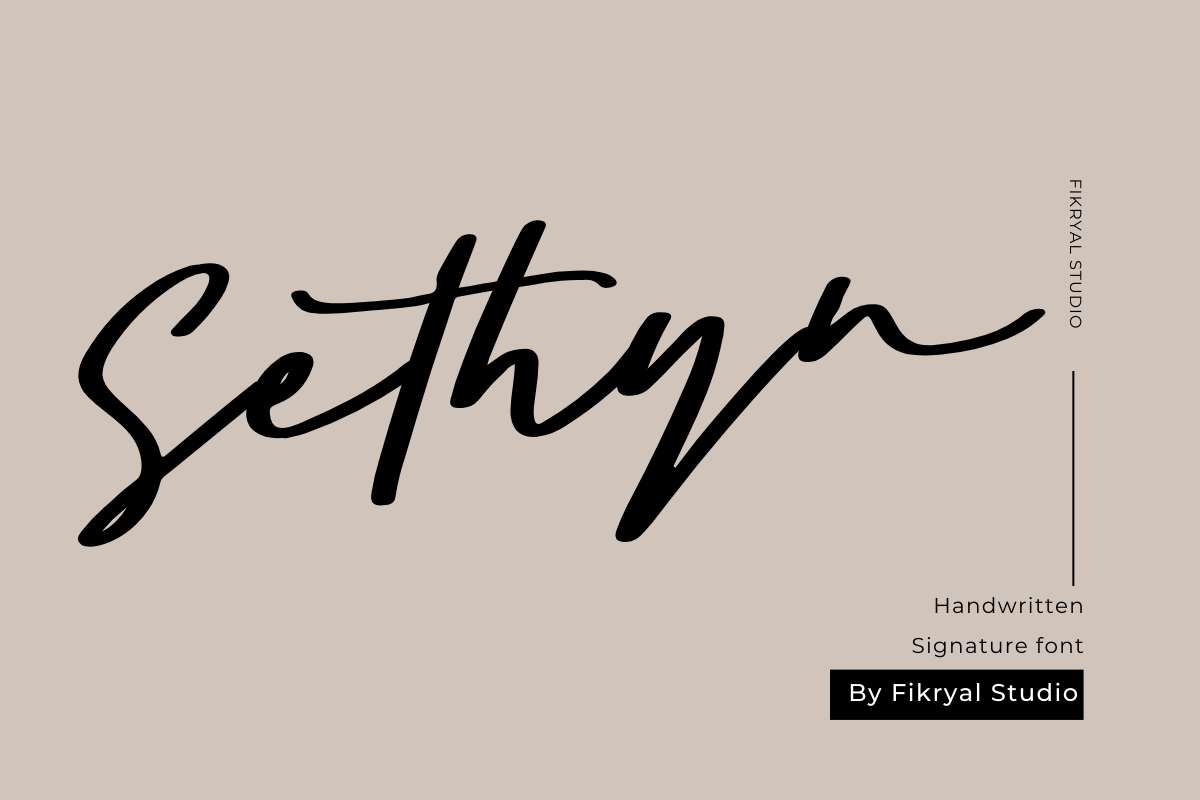
Sethyn – Handwritten Font
“Sethyn” Handwritten Script font is a captivating creative typeface with the beauty of natural and elegant handwriting. Meticulously crafted, this font blends a smooth and gentle handwritten style with a modern touch, making it suitable for various creative projects.
Each letter in the “Sethyn” font is gracefully carved, showcasing soft curves and seamlessly flowing connections. When used in designs, this font exudes a personal touch and brings a delightful warmth to the overall ambiance.
The strength of the “Sethyn” font lies in its versatility. It can be used for a wide range of design purposes, from logos and greeting cards to wedding invitations, as well as promotional materials or posters that require a personal touch.
If you are searching for a font that radiates the uniqueness of handwritten beauty, “Sethyn” Handwritten Script font is the perfect choice. Infuse your designs with an artistic touch and natural gentleness using this captivating font, and convey your message with a style that is special and unforgettable.